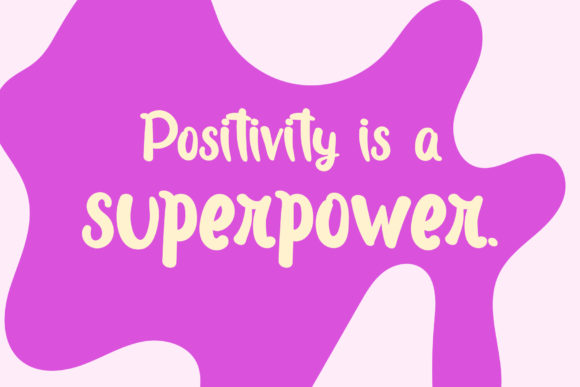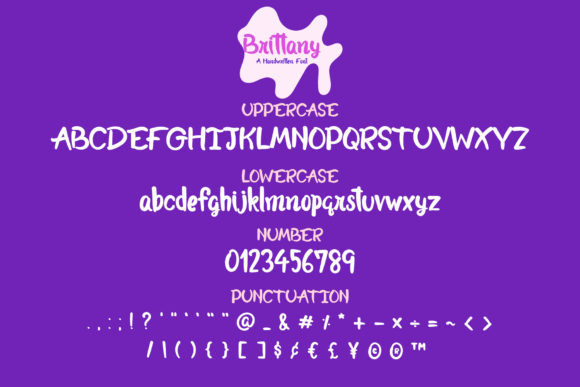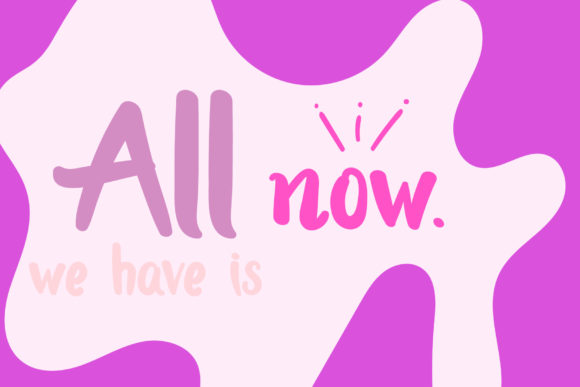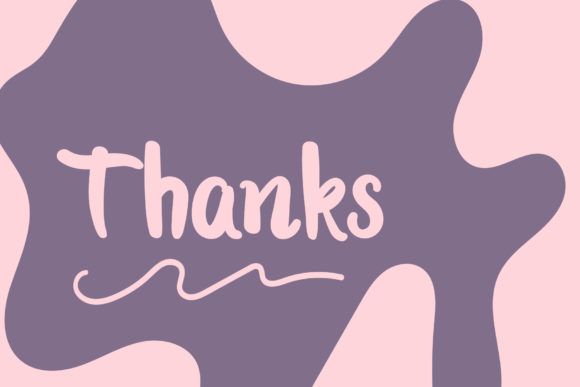
The Brittany Font: A Handwritten Gem for Creative Projects
I still remember the design project that led me to discover the Brittany font. I was working on a branding project for a small business, and I was struggling to find the perfect font to capture their down-to-earth, yet elegant vibe. That’s when I stumbled upon Brittany, and it instantly became my go-to choice. In this article, I’ll share my love for this beautiful handwritten font, its features, and how to make the most of it in your creative projects.
An Honest Review of Brittany Font
The Brittany font has won my heart with its casual charm and versatility. Here’s what I love about it:
• ✨ Beautifully handcrafted with a personal touch
• ✅ Exceptional readability, even on busy backgrounds
• ✅ Incredibly versatile, suitable for various design contexts
• ✅ Works well as a standalone headline or in combination with other fonts
While Brittany is an amazing font, it’s not perfect. Here are some minor quirks to keep in mind:
• 🤔 Limited availability of stylistic alternates, but still offers a range of glyphs
• ⚠️ May not be the best choice for very small font sizes or body text
The Story Behind Brittany Font
The Brittany font was designed with love and care to create a unique, handwritten font that captures the essence of casual elegance. While I couldn’t find any information on the designer’s personal story, it’s clear that their goal was to create a versatile font that would become a favorite among designers and creative hobbyists.
What makes Brittany font so special? The Brittany font is a beautifully handcrafted, handwritten font that offers a unique blend of casual charm and elegance, making it incredibly versatile for various design contexts.
Is Brittany font suitable for body text? While Brittany font is incredibly readable, it may not be the best choice for very long body text. It’s better suited for headlines, titles, and short paragraphs.